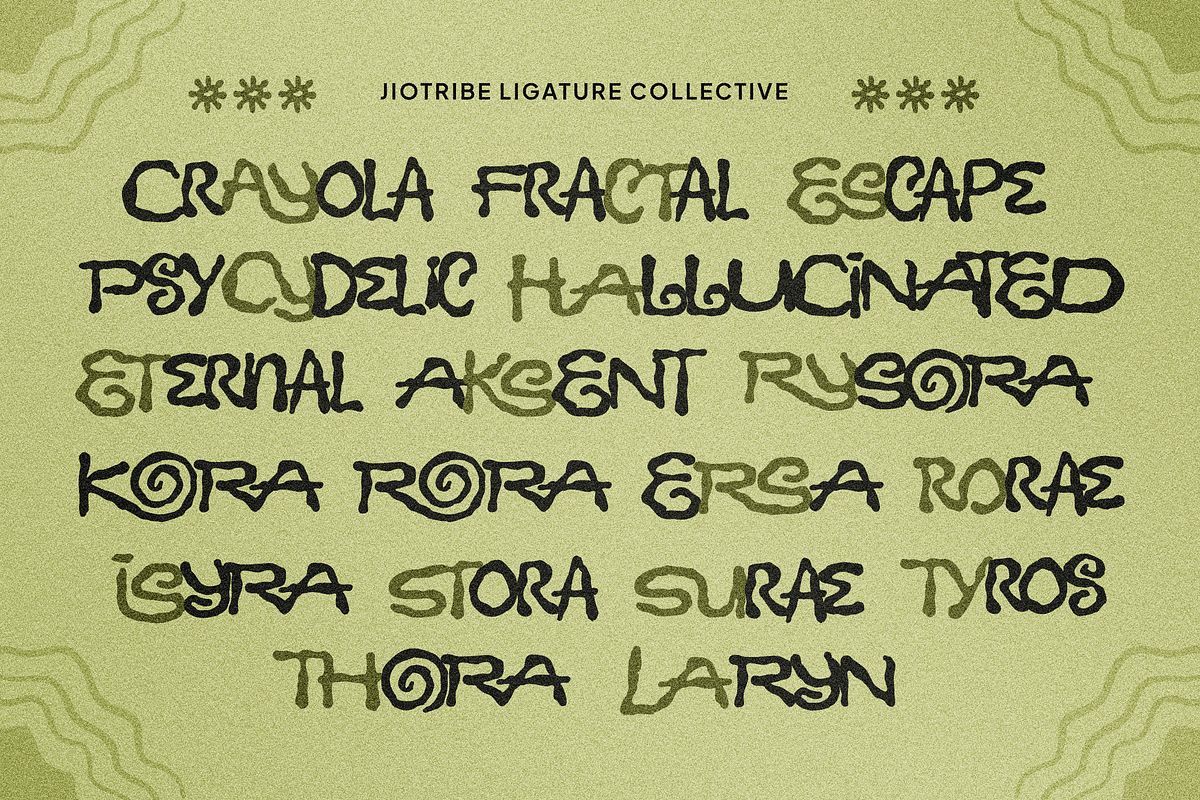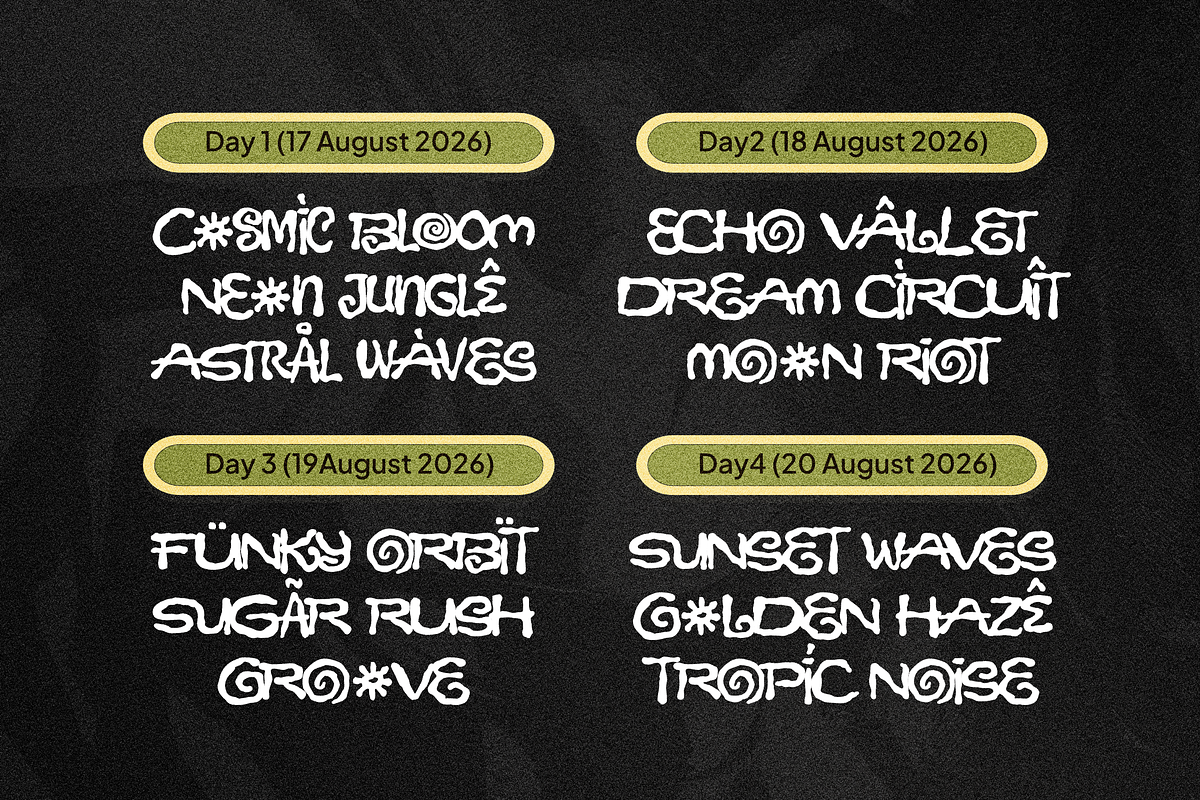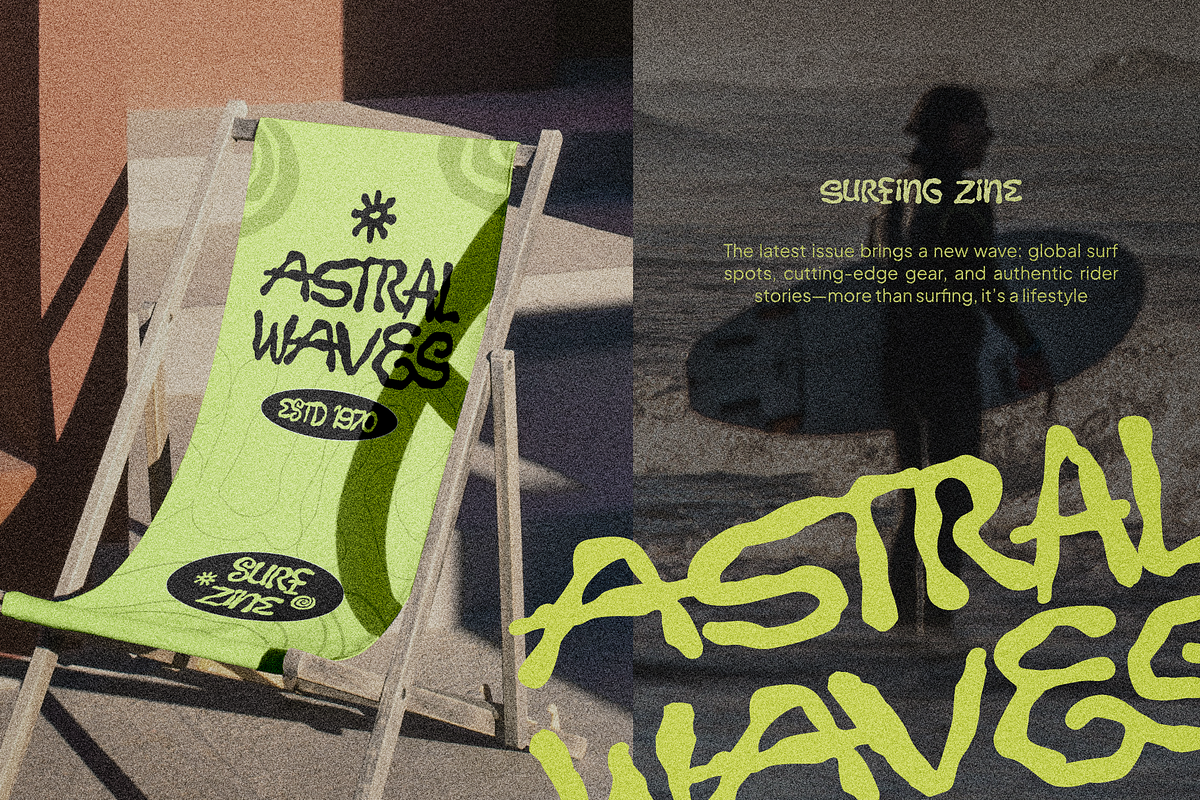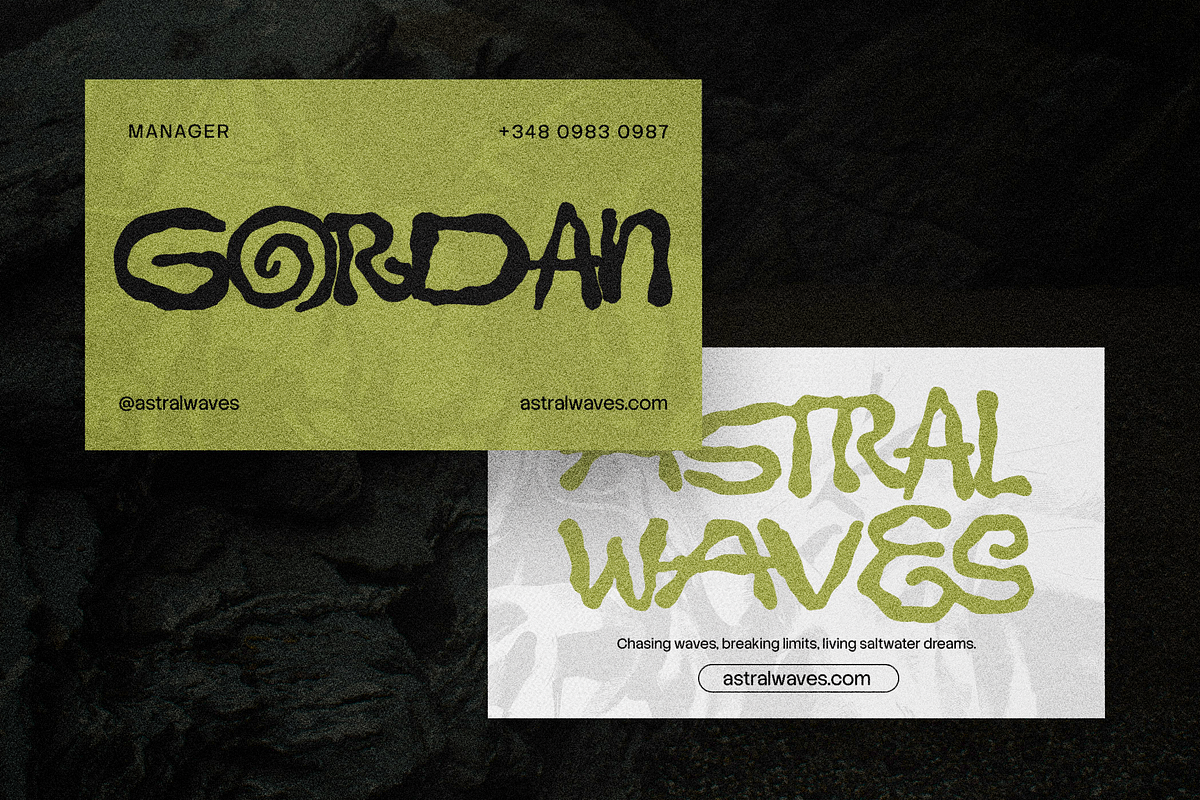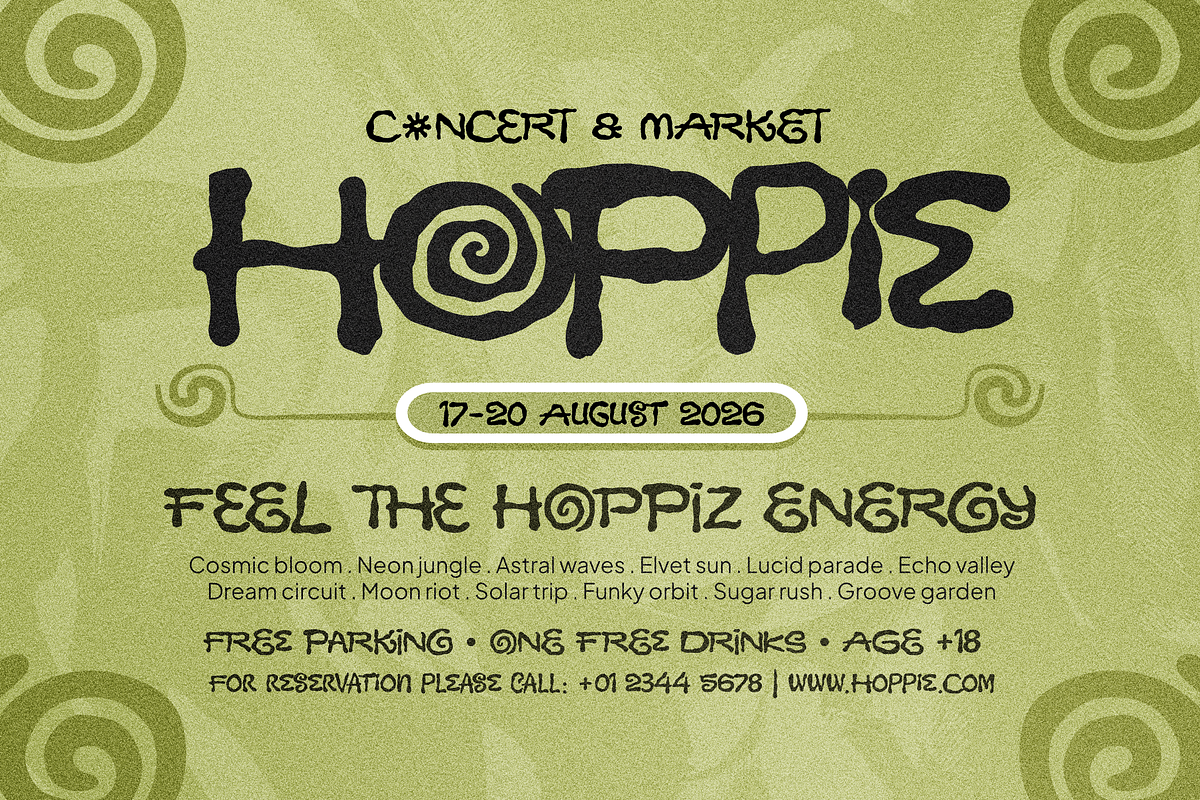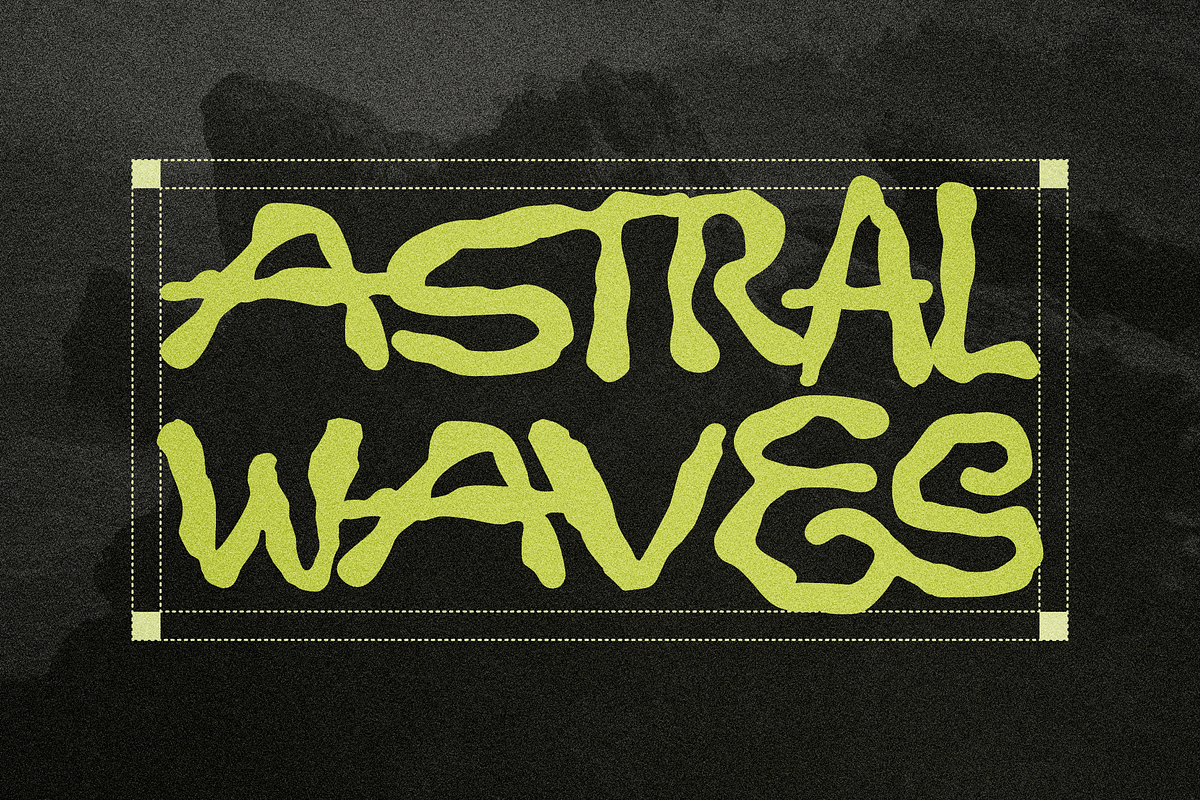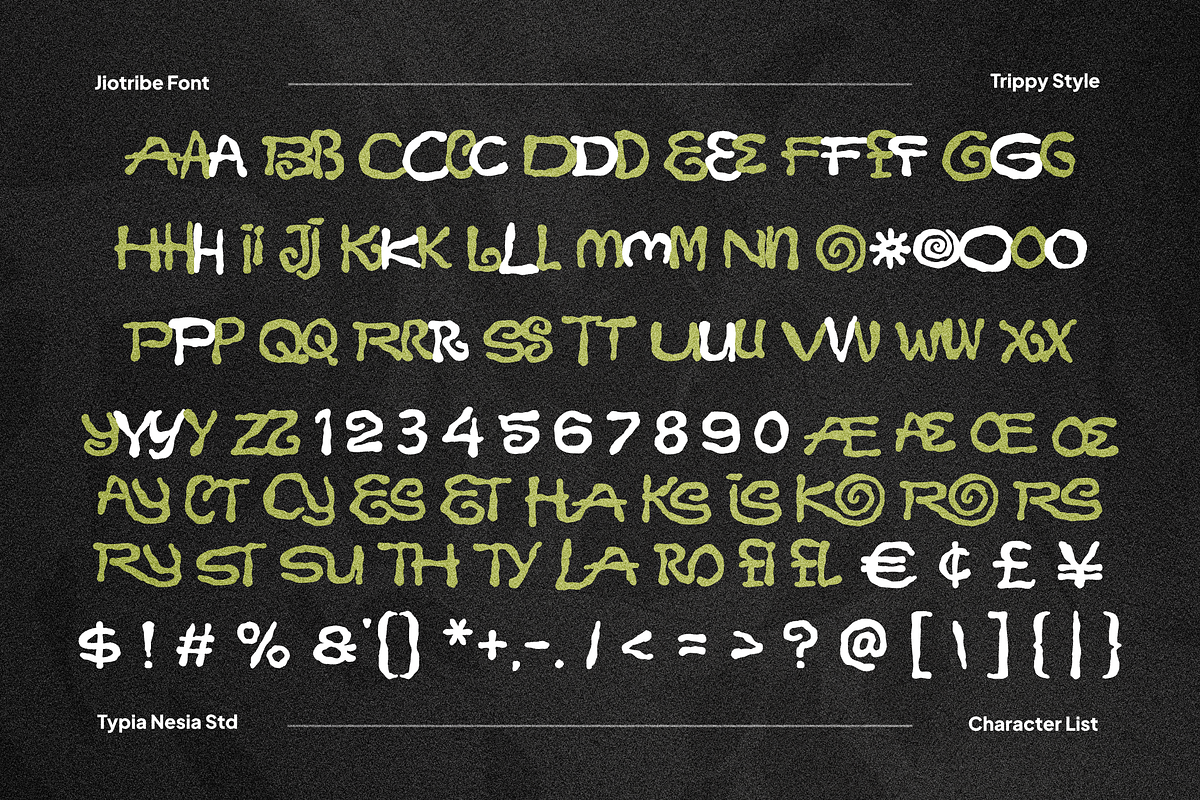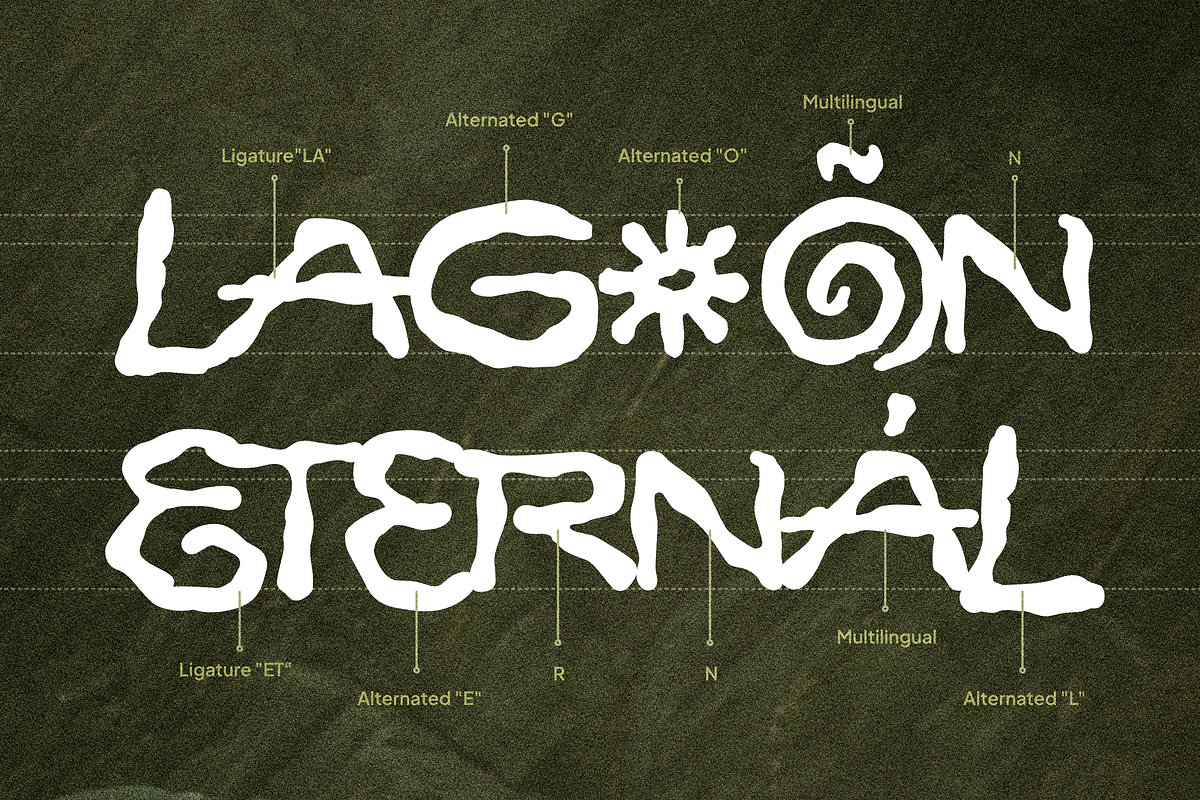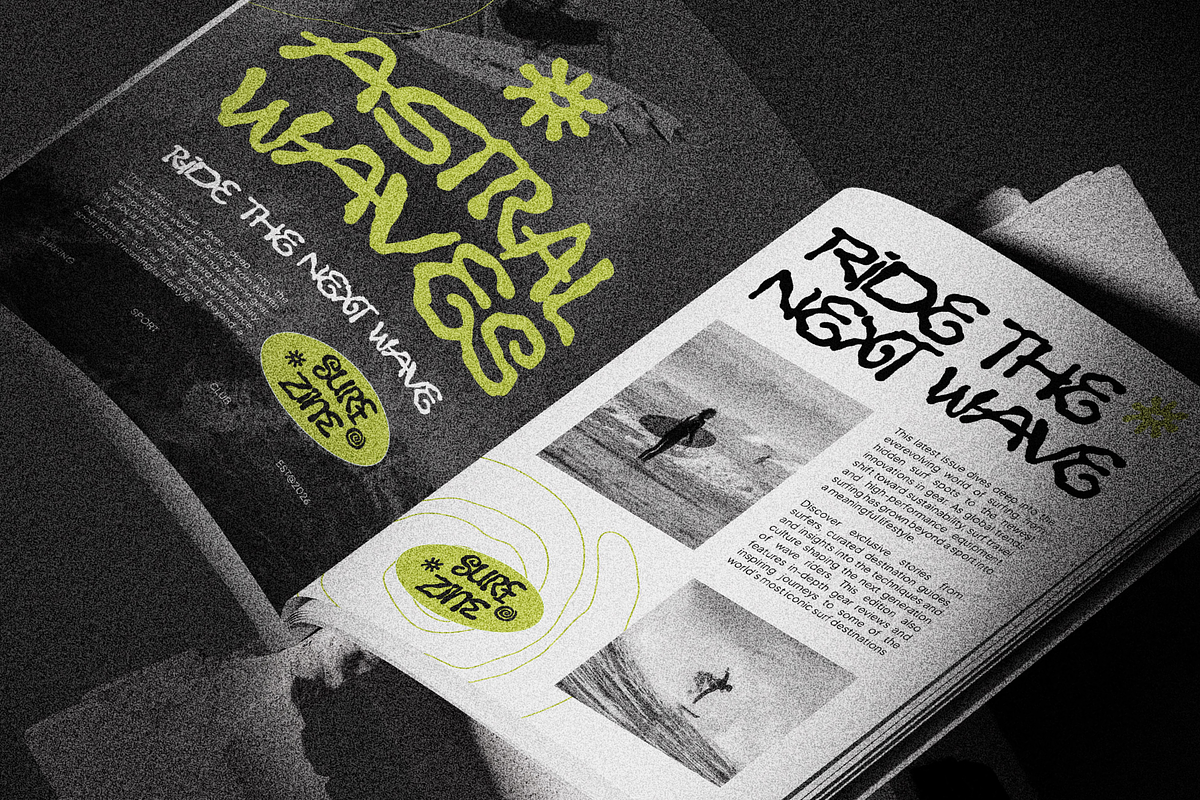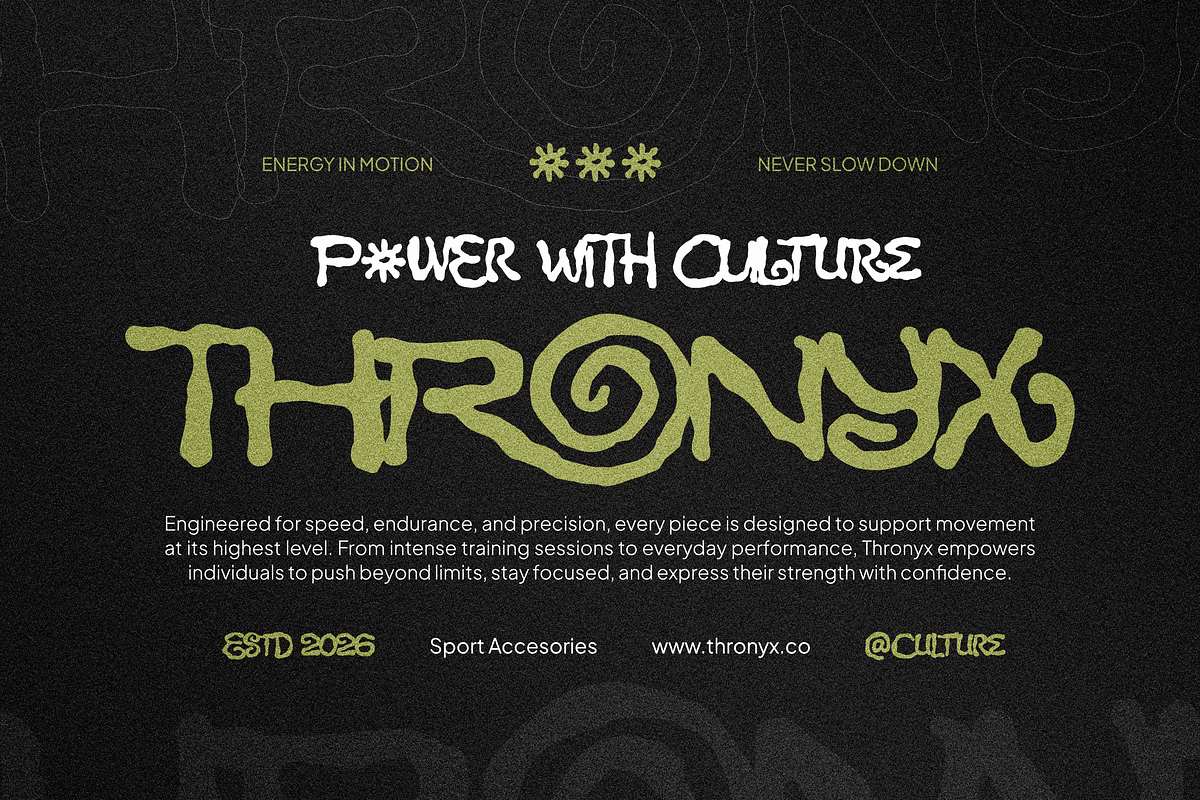
Jiotribe - Bohemian Psychedelic Font
Jiotribe - Organic Bohemian Psychedelic Font - Modern Grafiti Display Font
Jiotribe is an organic bohemian psychedelic display font inspired by free-spirited artistic expression and retro groovy culture. Designed with flowing liquid curves and fluid decorative shapes, this typeface delivers a bold and unique personality full of creativity and movement. Its handcrafted organic style blends bohemian aesthetics, hippie vibes, and psychedelic energy, making it perfect for posters, logos, graffiti-inspired visuals, artistic branding, festival artwork, album covers, and tribe-themed creative projects.
Express your creative spirit with Jiotribe.